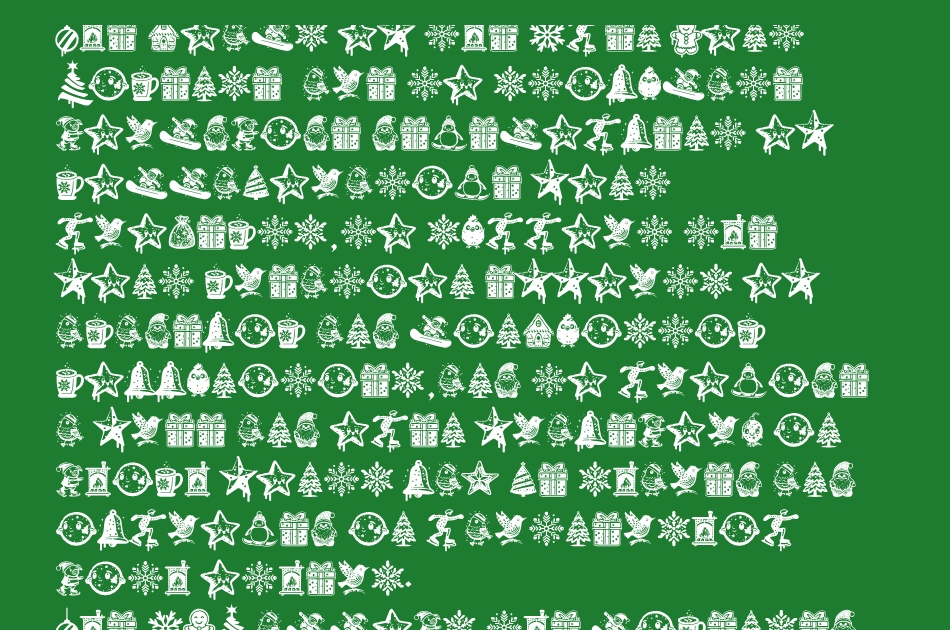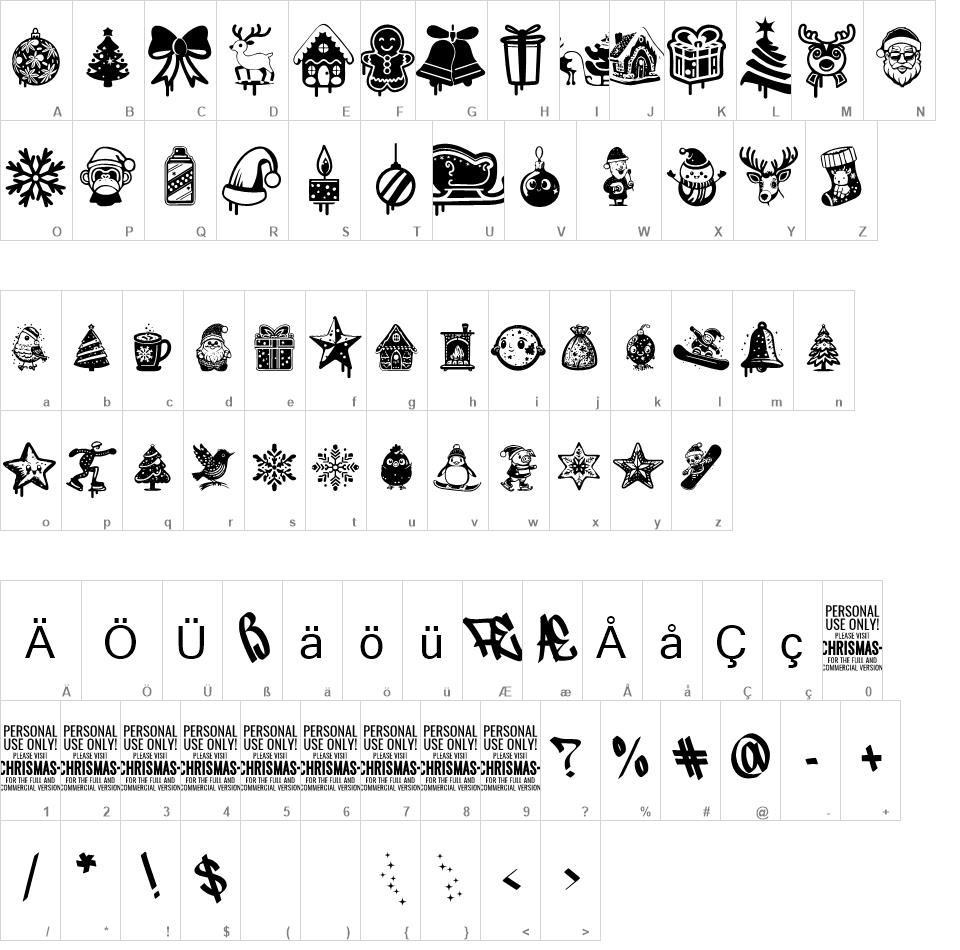
Christmas Cypher font
Christmas Cypher is a street Xmas font.
This graffiti-inspired font embodies a dash of urban flair, with calligraphic strokes infused with a sparkling twist of Christmas elements.
Use the included Icon font to make Christmas symbols such as stars, Santas, gifts and reindeers.
Use parenthesis symbols () [] {} to make stars around any word.
Example: {Hiphop}[Style]
Christmas Cypher is a street Xmas font.
It merges the rebellious spirit of street art with the nostalgic cheer of the holiday season. This graffiti-inspired font embodies a dash of urban flair, perfect for designs that aim to stand out. Its bold strokes and sharp attitude, infused with a whimsical twist of Christmas elements, make it ideal for youthful and energetic designs. The font dances between traditional cheer and contemporary cool, bringing a fresh perspective to the visual language of Christmas.
Use the included Icon font to make Christmas symbols.
Use parenthesis symbols () [] {} to make stars around any word.
Example: {Hiphop}[Style]
The font is built with advanced OpenType functionality and guaranteed top-notch quality, containing stylistic and contextual alternates, ligatures and more automatic and manual features; all to give you full control and customizability.
It has extensive lingual support, covering all Latin-based languages, from North Europa to South Africa, from America to South-East Asia. It contains all characters and symbols you'll ever need, including all punctuation and numbers.
Designed by Mans Greback, a typographer known for his attention to detail and passion for blending tradition with modern design trends, Christmas Cypher is more than a font – it's a declaration of celebration and creativity.